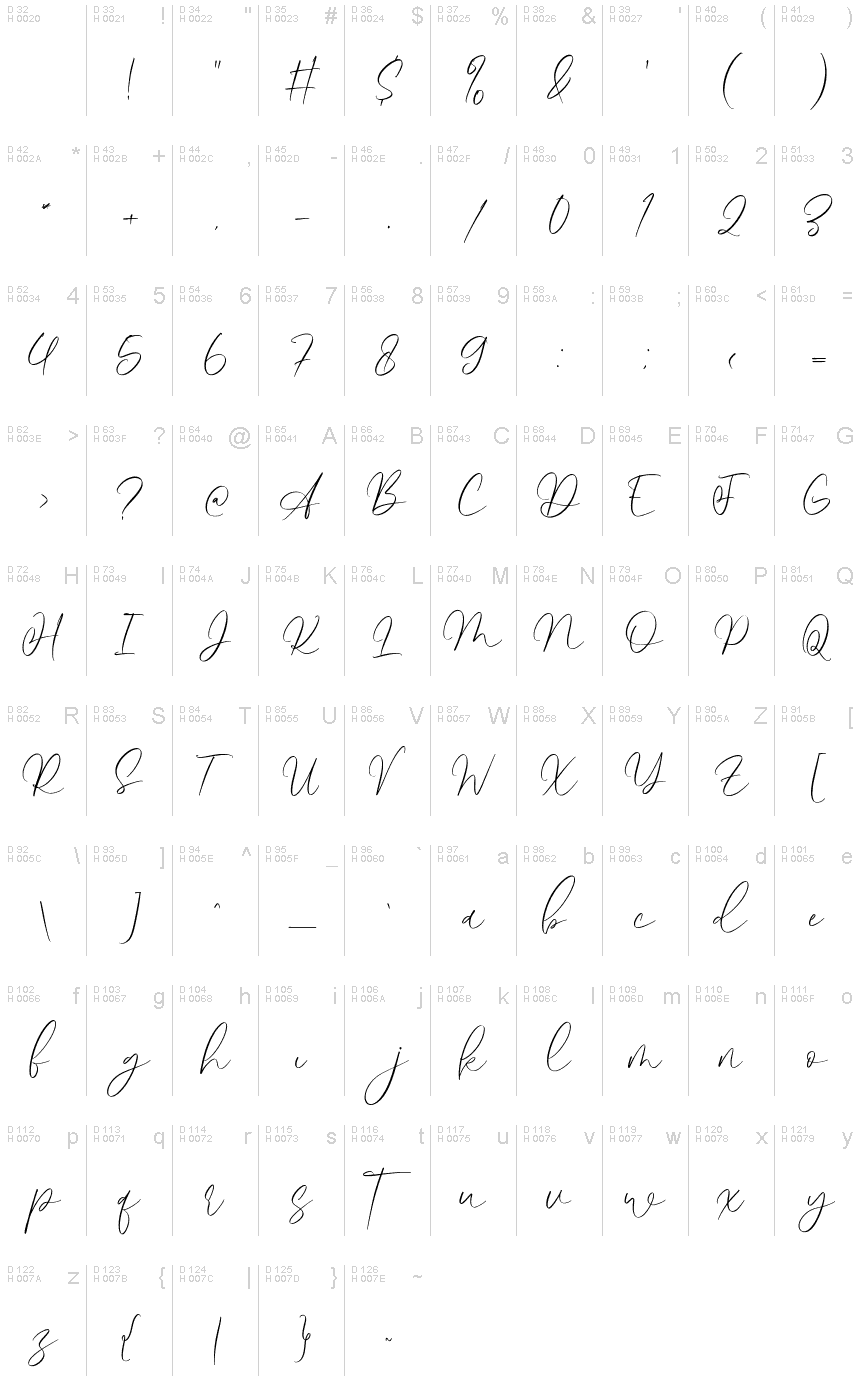
Broadloom
Broadloom, the latest handwritten font from Hatf Type, is the perfect addition to your design toolbox. With its extra-light weight, it exudes a delicate and graceful look that is ideal for projects requiring a feminine touch. This lovely typeface is versatile enough to be used in a variety of design projects such as wedding invitations, greeting cards, branding materials and more. The organic feel of Broadloom will give your creations a beautiful handmade touch that will make them stand out from the crowd. Try out Broadloom today and see how it can transform your designs into something truly special.